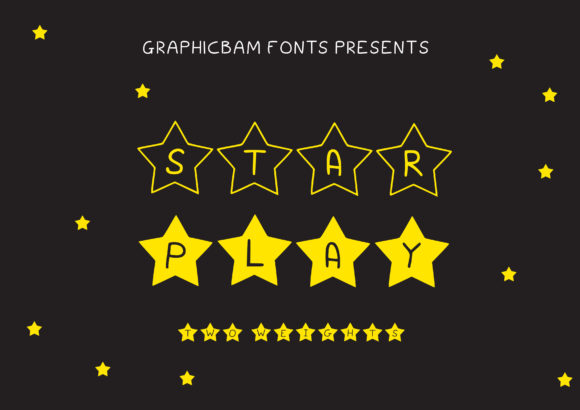
Journey into the realm of creative expression with Star Play Font, a captivating decorative font that dances across your designs with playful charm. Crafted by the renowned GraphicsBam Fonts, Star Play is a visual symphony that harmonizes joy and elegance.
This font family is an ode to whimsy, transforming numbers into captivating works of art. Its playful curves and striking shapes dance across the page, evoking a sense of childlike wonder and lightheartedness. Whether you're creating cartoon-themed designs, crafting children's games, or simply seeking a touch of enchantment, Star Play Font will cast a magical spell on your creations.
Its versatility extends beyond children's-themed designs, making it a perfect companion for whimsical invitations, vibrant posters, or quirky branding projects. Imagine your words taking on a life of their own, captivating your audience with their playful energy. Let Star Play Font infuse your designs with a sense of merriment and leave a lasting impression.
Star Play Font's uniqueness lies in its ability to transform mundane numbers into extraordinary visual elements. Its intricate details and dynamic flow bring life to numerical sequences, making them integral parts of your artistic vision. Unleash your creativity and explore the boundless possibilities of numeric expression.
Don't settle for ordinary fonts; embrace the extraordinary with Star Play Font. Its enchanting aura will captivate your audience, leaving them spellbound by the sheer beauty of your designs. Let your imagination soar as you witness the transformative power of Star Play Font, turning simple words into captivating works of art.